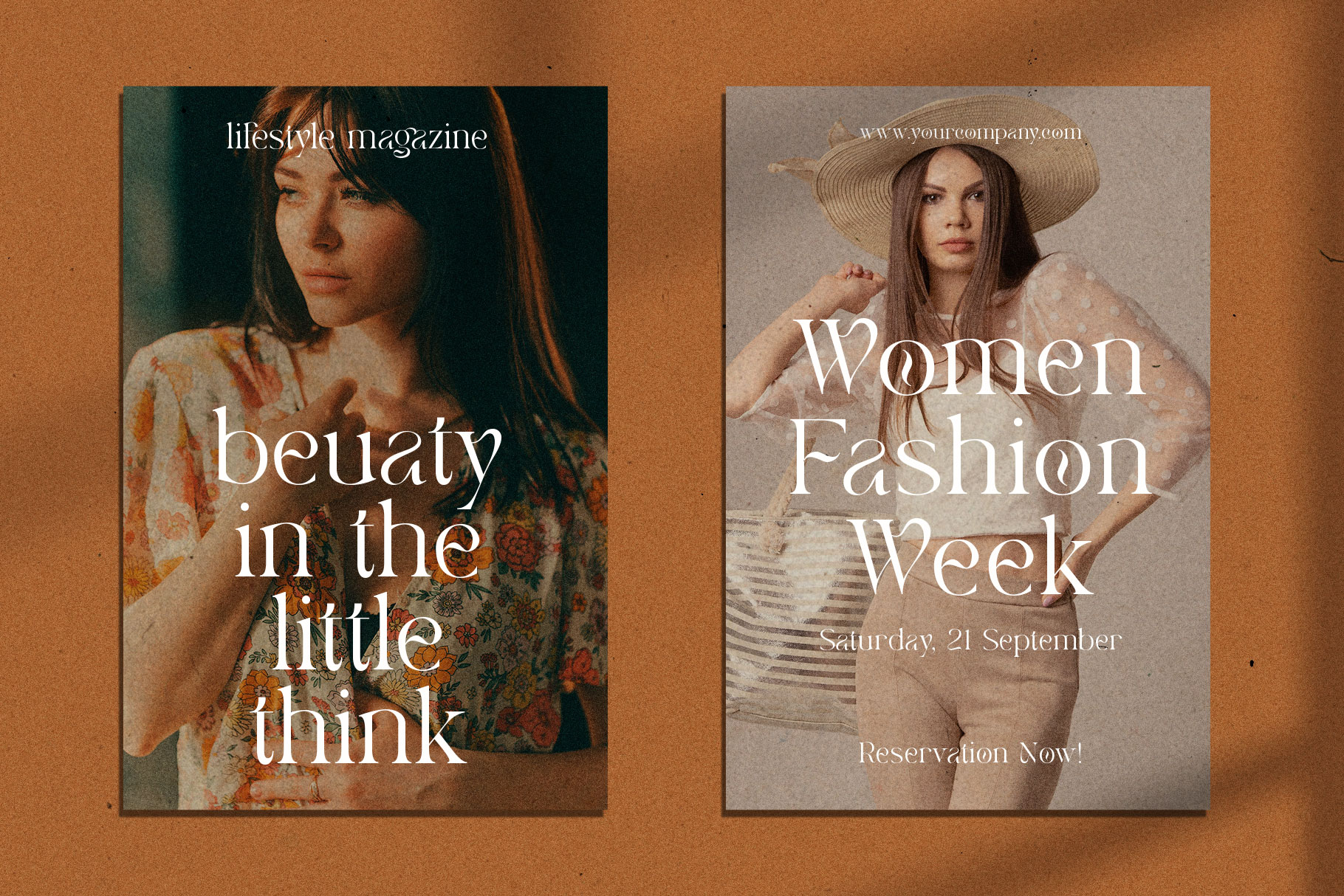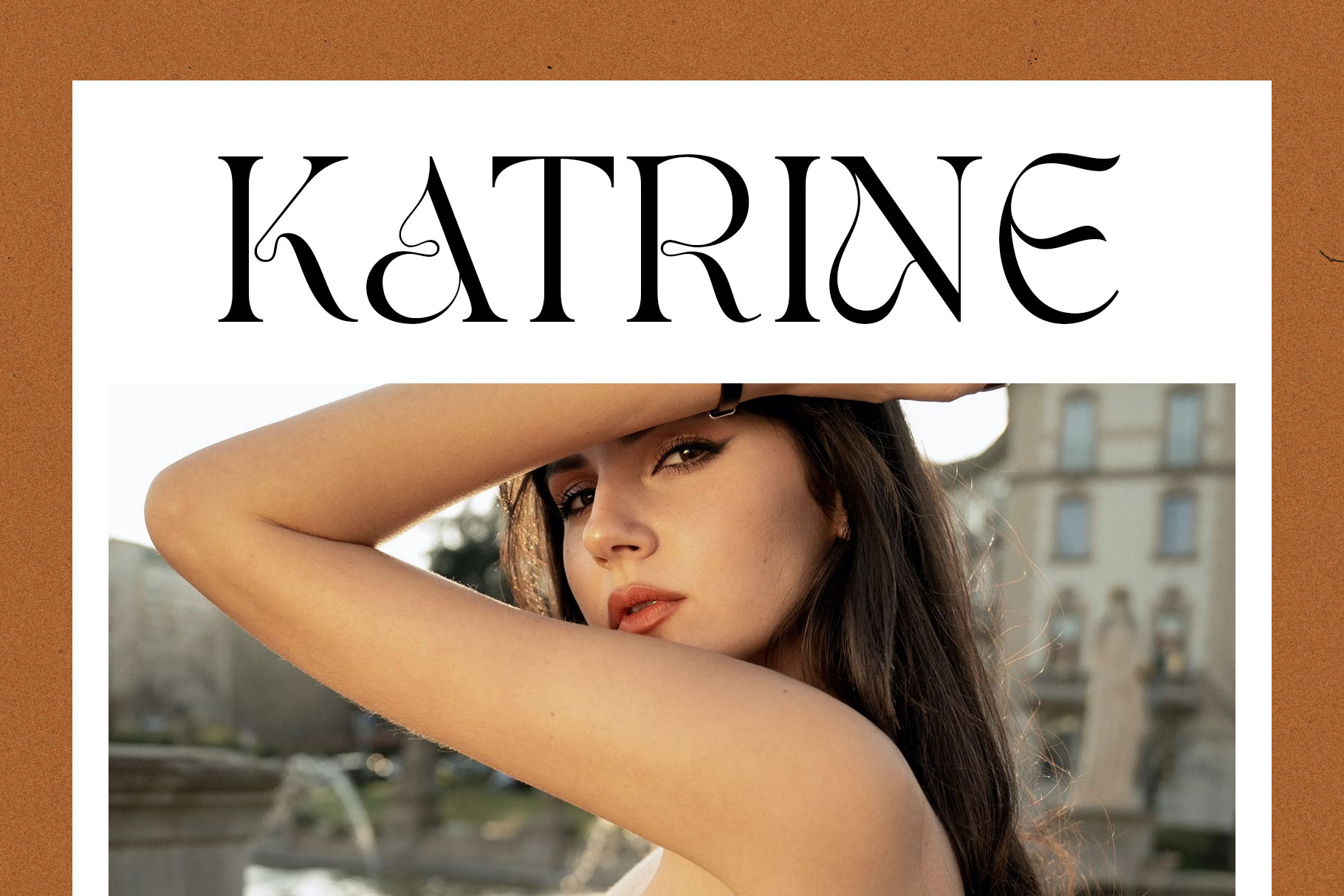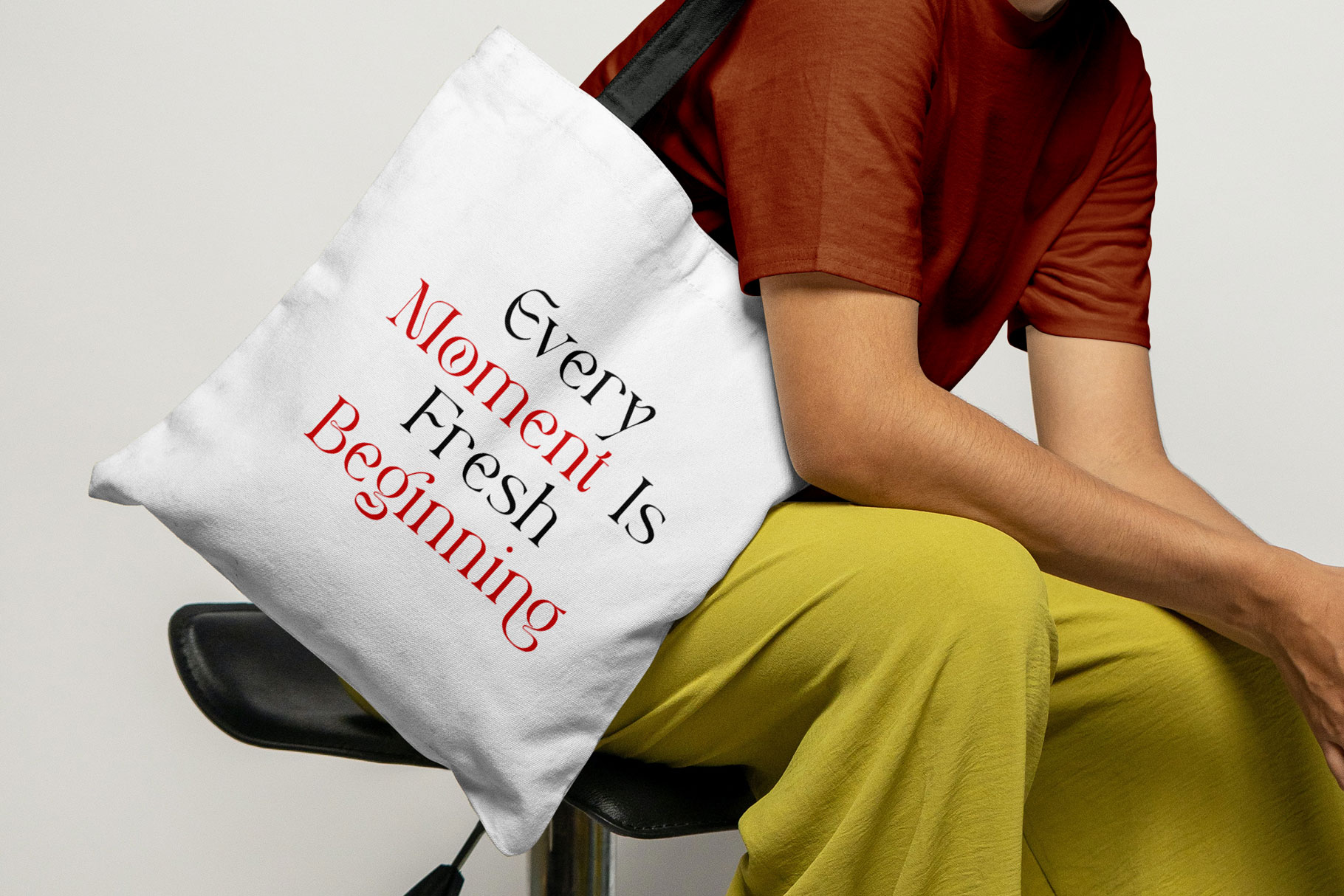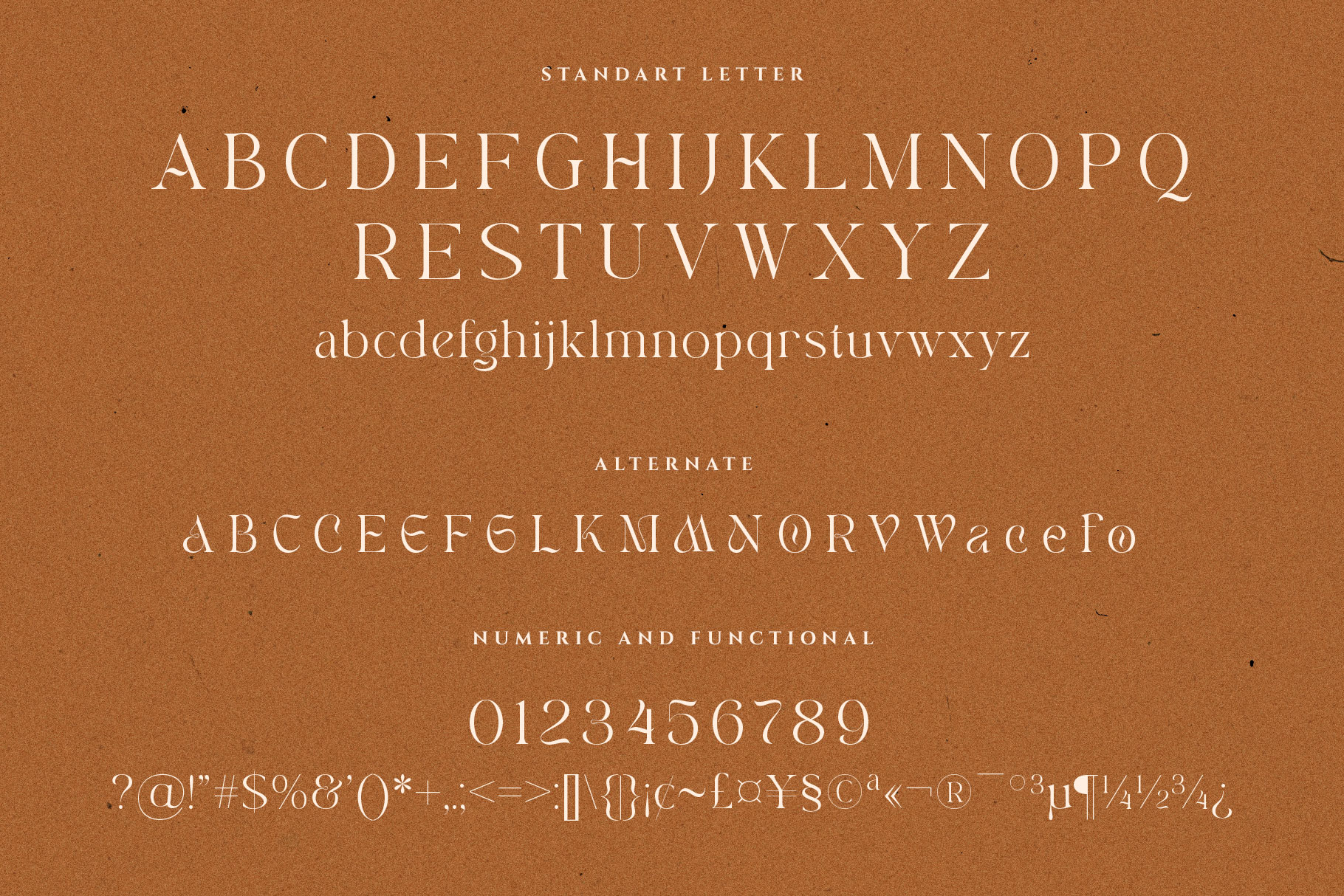
Valerie Angel Beautiful Serif Font
Valerie Angel is a beautiful, feminine, display serif font that embraces elegance and grace. Its delicate curves and refined details create a sense of sophistication and femininity wrapped with a beautiful Alternate stylist. we love how A M N W V R y the curve is so charming. Valerie Angel brings a touch of charm and sophistication to branding, editorial designs, and more.  We keep this font looks fashionable, elegant, luxury, premium, modern, catchy and easy to use. With its versatility and contemporary appeal.
Valerie Angel – separate in reguler and italic, is a beautiful choice for any creative endeavor, creating elegant, modern, chic, lifestyle design such as logos, title, cover, branding, invitations, wedding designs, display and magazine, social media posts, advertisements, printed quotes, product packaging, product designs, labels, photography, watermarks, special events and more. Now you can using Valerie Angel to make a stunning design.